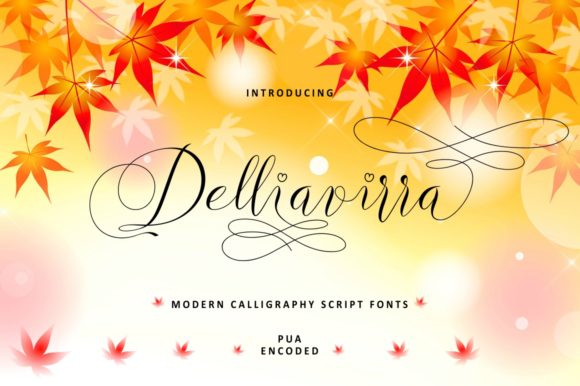
Delliavirra Font
Are you ready to make your creative projects shine like never before? Discover Delliavirra Font, the captivating script that will add a touch of elegance and charm to all your designs.
Crafted with meticulous attention to detail, Delliavirra boasts beautiful swashes that dance across your creations, transforming them into captivating works of art. Each letter flows effortlessly, creating a harmonious blend of style and readability.
Whether you're a seasoned designer or just starting your journey, Delliavirra is the perfect choice for adding a personal touch to your logos, invitations, social media posts, and any other project where you want to make a lasting impression.
Join the creative revolution and embrace the beauty of Delliavirra Font. Elevate your designs to new heights and leave a lasting impact on your audience. Download now and let your imagination soar!